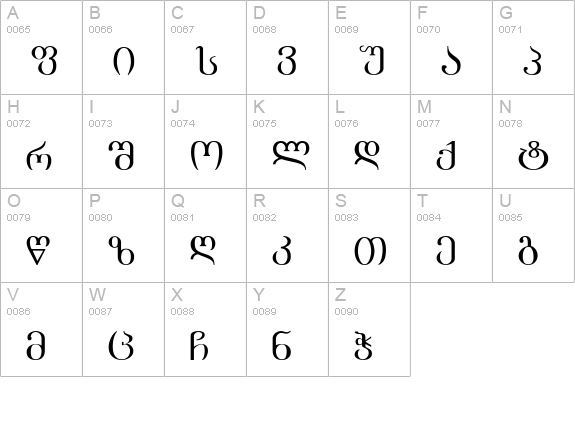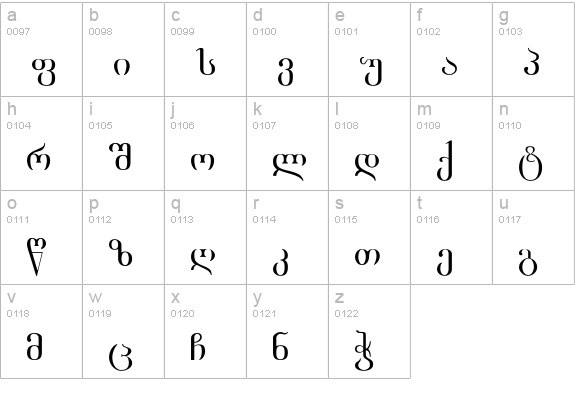
Academiury-ITV Font Details
Academiury-ITV is a sophisticated and modern font that exudes professionalism and elegance. Its sleek lines and sharp edges make it perfect for a wide range of design projects, from business presentations to marketing materials. The clean and minimalist design of Academiury-ITV gives it a timeless appeal that will never go out of style. One of the best things about Academiury-ITV is that it is available for free download at FontsMarket.com. This means that you can easily access this high-quality font without having to worry about breaking the bank. Whether you are a designer on a budget or simply looking to add a touch of class to your projects, Academiury-ITV is the perfect choice. With its versatility and timeless design, Academiury-ITV is sure to become a staple in your font collection. Download it for free today at FontsMarket.com and elevate your designs to the next level.